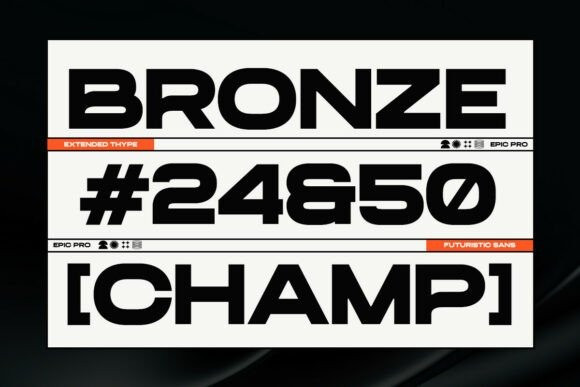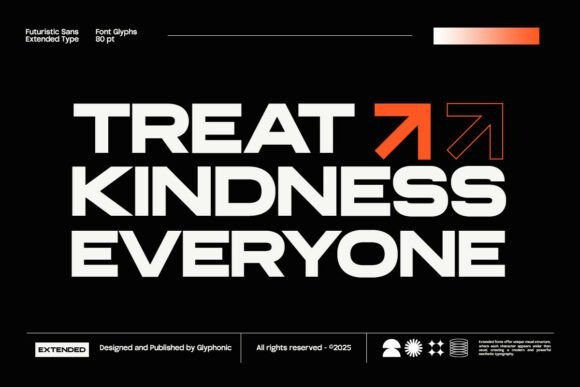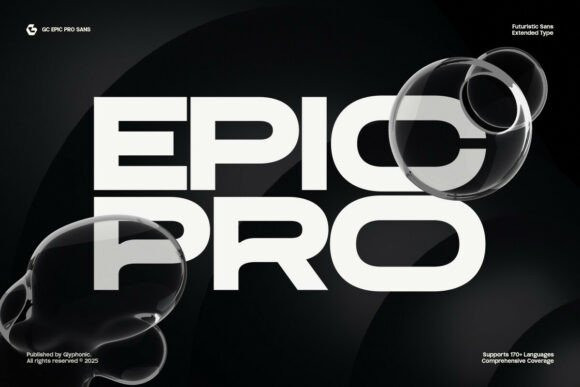
Gc Epicpro Font
Gc Epicpro Font is a futuristic extended sans-serif display typeface that fuses bold proportions with crisp, modern design. Crafted for designers who demand clarity and impact, it’s built to dominate headlines, energize tech branding, elevate sports logos, and sharpen editorial layouts. Each character carries confidence—wide letterforms, sharp edges, and precise geometry give it a distinctly forward-facing aesthetic.
Whether you’re creating sci-fi visuals, designing for esports teams, or building sleek UI/UX concepts, EPIC PRO delivers high-performance readability with cutting-edge style. It includes uppercase and lowercase letters, dynamic ligatures, stylistic alternates, and multilingual support. From bold titles to refined interfaces, EPIC PRO makes a powerful and timeless statement.